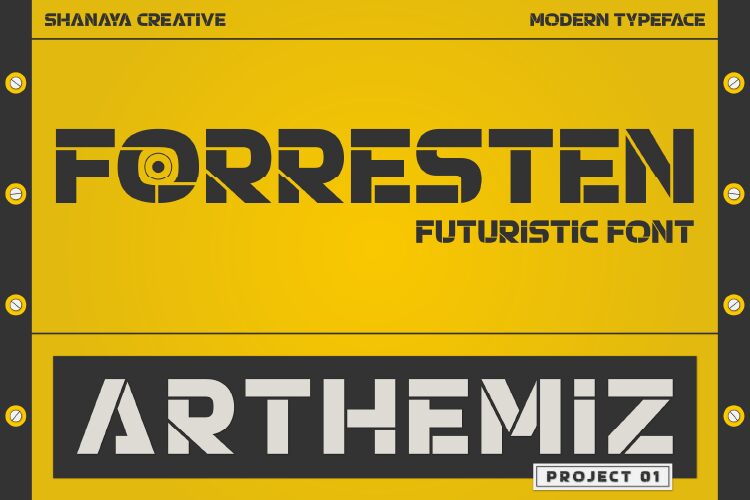
Forresten font family by Shanaya Studio is a futuristic techno-style free font with a geometric, angular design. This sleek and dynamic typeface embodies a cutting-edge industrial vibe that evokes modern technology and innovation. Primed for use in various design projects, Forresten is an attractive font family that will provide a sleek choice for those who constantly strive to impress with their latest and greatest design.
Forresten is suitable for various applications, from posters and banners to magazines and brochures. It can also be used to design websites, mobile applications, UI/UX interfaces, social media posts, advertisements, and billboards. Users are invited to experiment with this font in logos, movie titles, and video games.